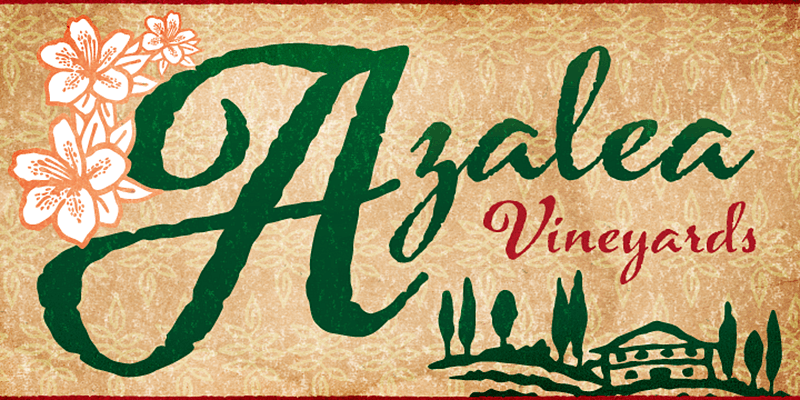
Azalea Font Free Download is an elegant, flowing script typeface designed to bring sophistication and grace to your designs. With its delicate curves, smooth connections, and beautiful flourishes, this font is perfect for high-end branding, invitations, wedding designs, logos, and any project requiring a refined, personal touch.
Azalea Font Free Download offers a timeless calligraphic style, combining traditional elegance with modern readability. Whether you're designing romantic invitations, luxury product packaging, or refined logos, Azalea adds a sense of elegance and charm to your typography.
It pairs well with minimalist sans-serifs for contrast or with other elegant script fonts for a beautifully cohesive look.